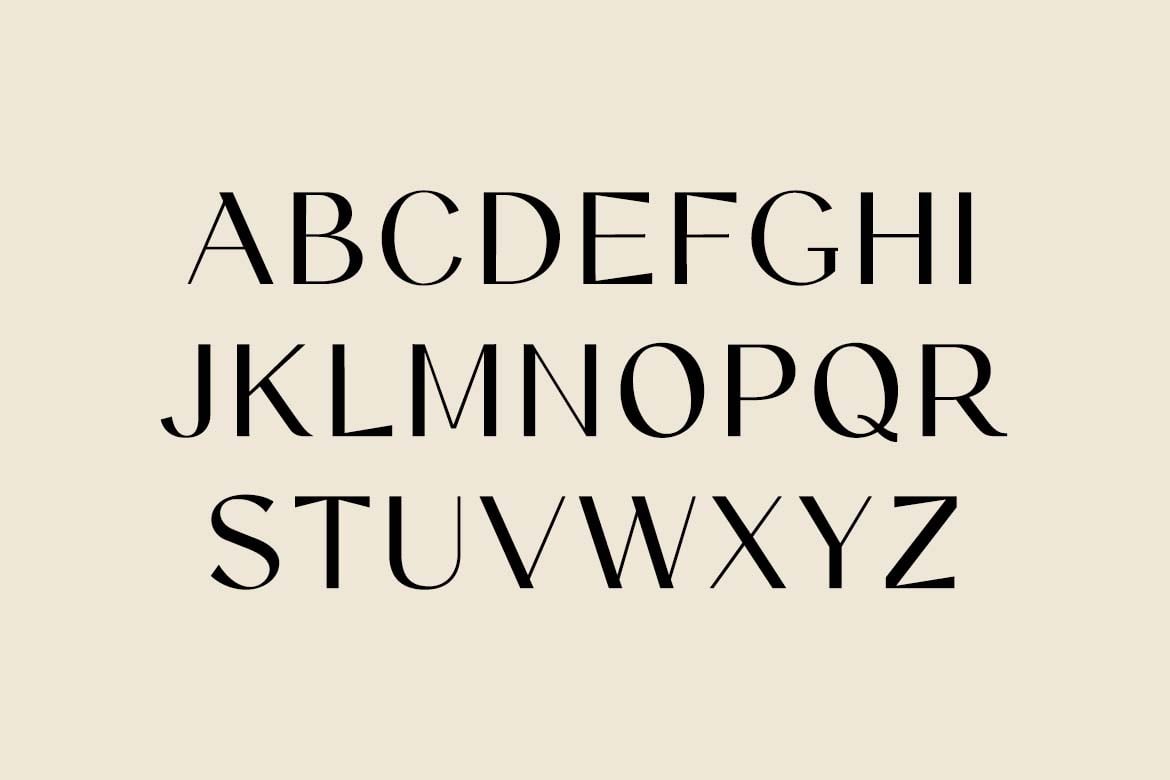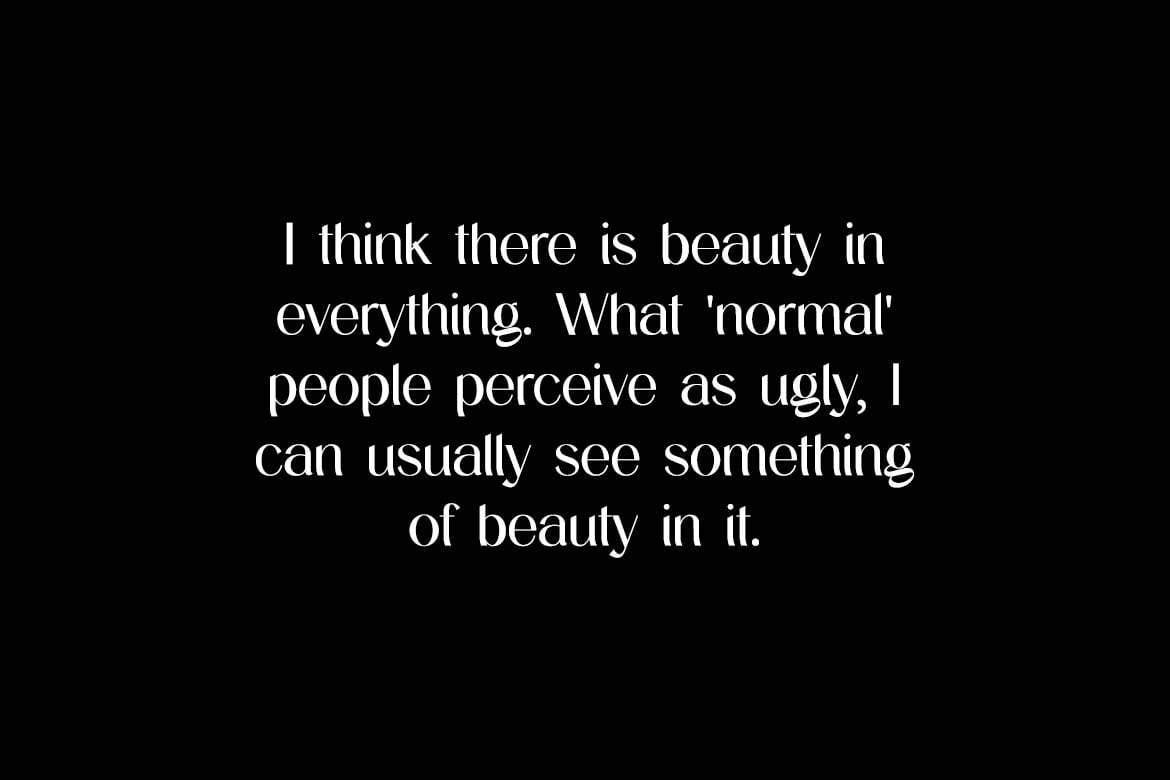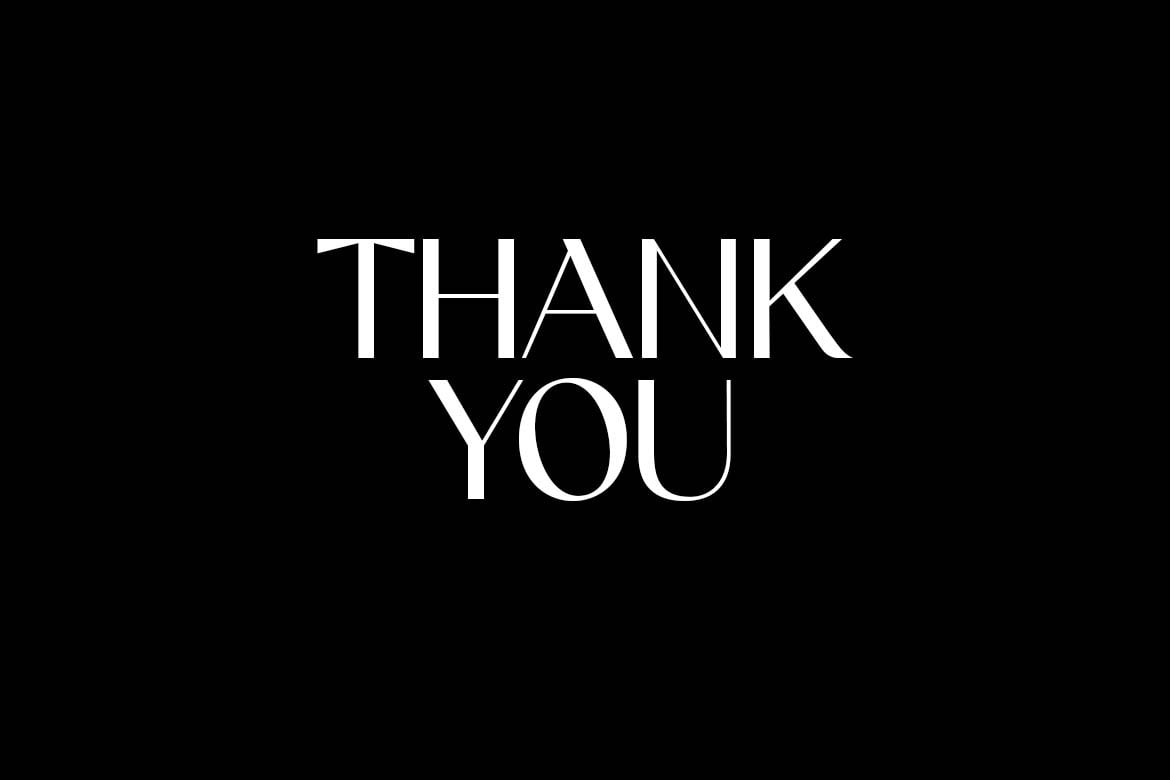
Garbolde Bold & Tall Font Font is unique . Ready to use for your design like labeling, movie sceen, poster, movie title, gigs, album covers, logos, and much more.